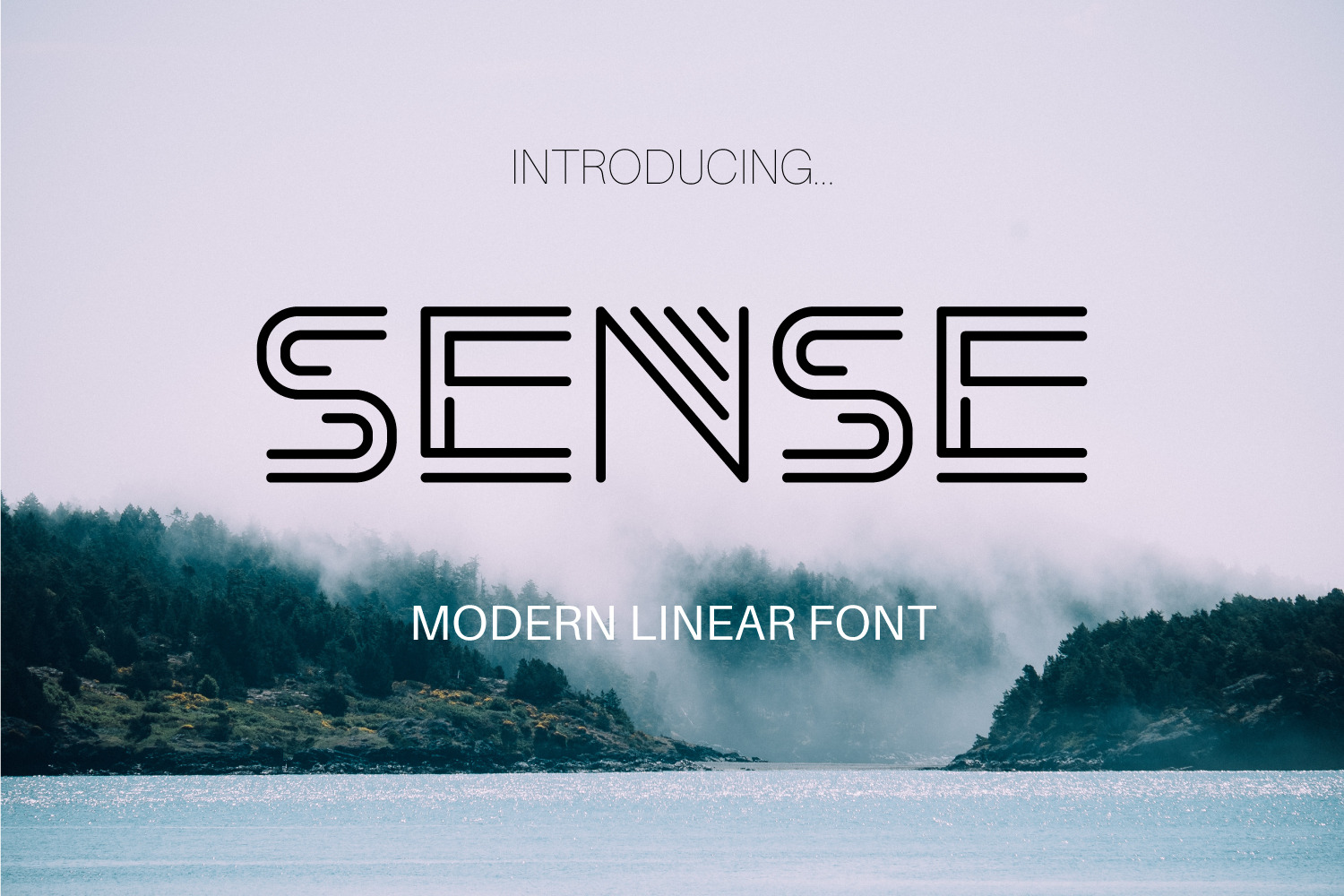
Sense Font
Sense - modern linear Sans Serif font. It's suitable for greeting cards, branding materials, business cards, social media, packaging, prints, quotes, posters etc.